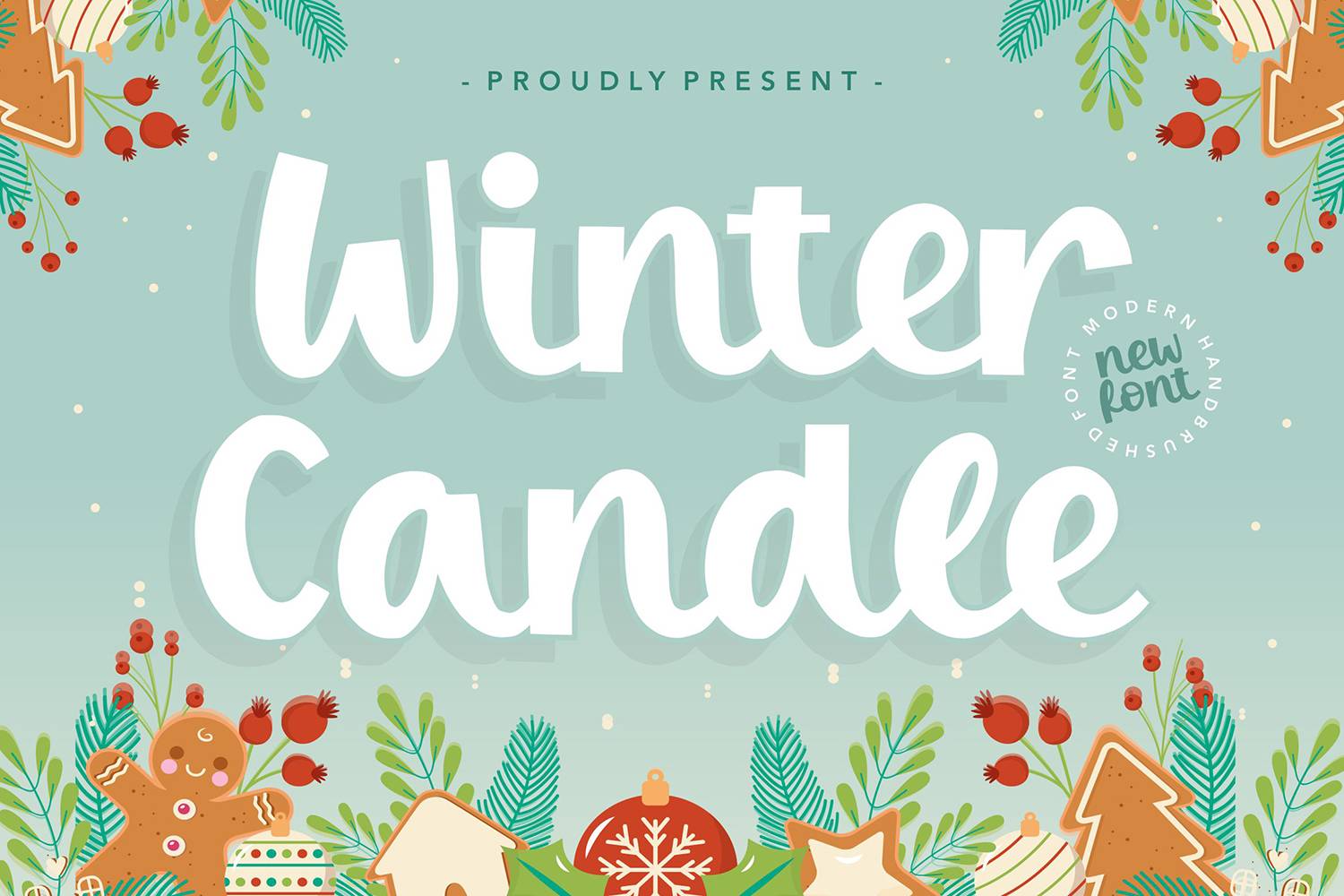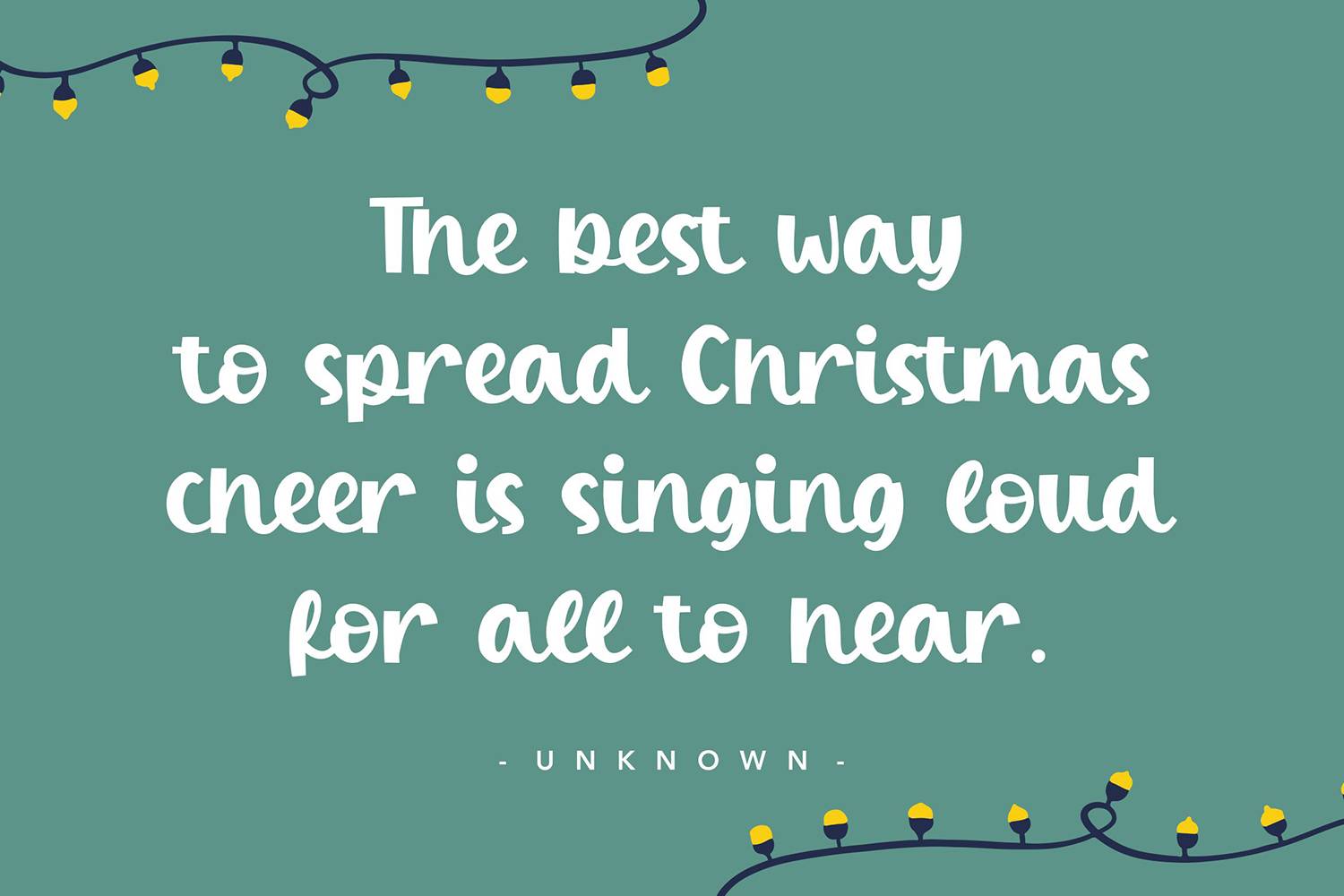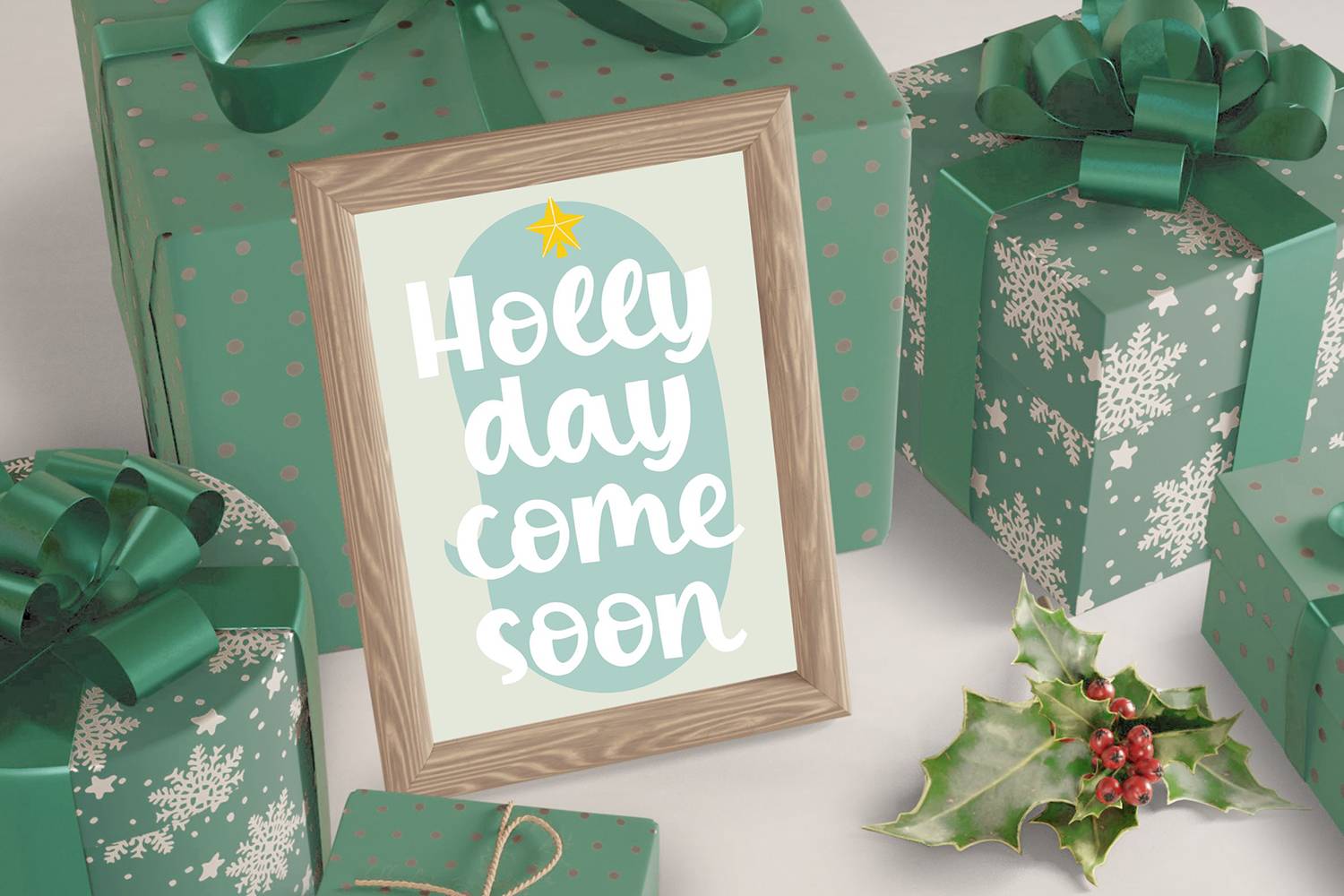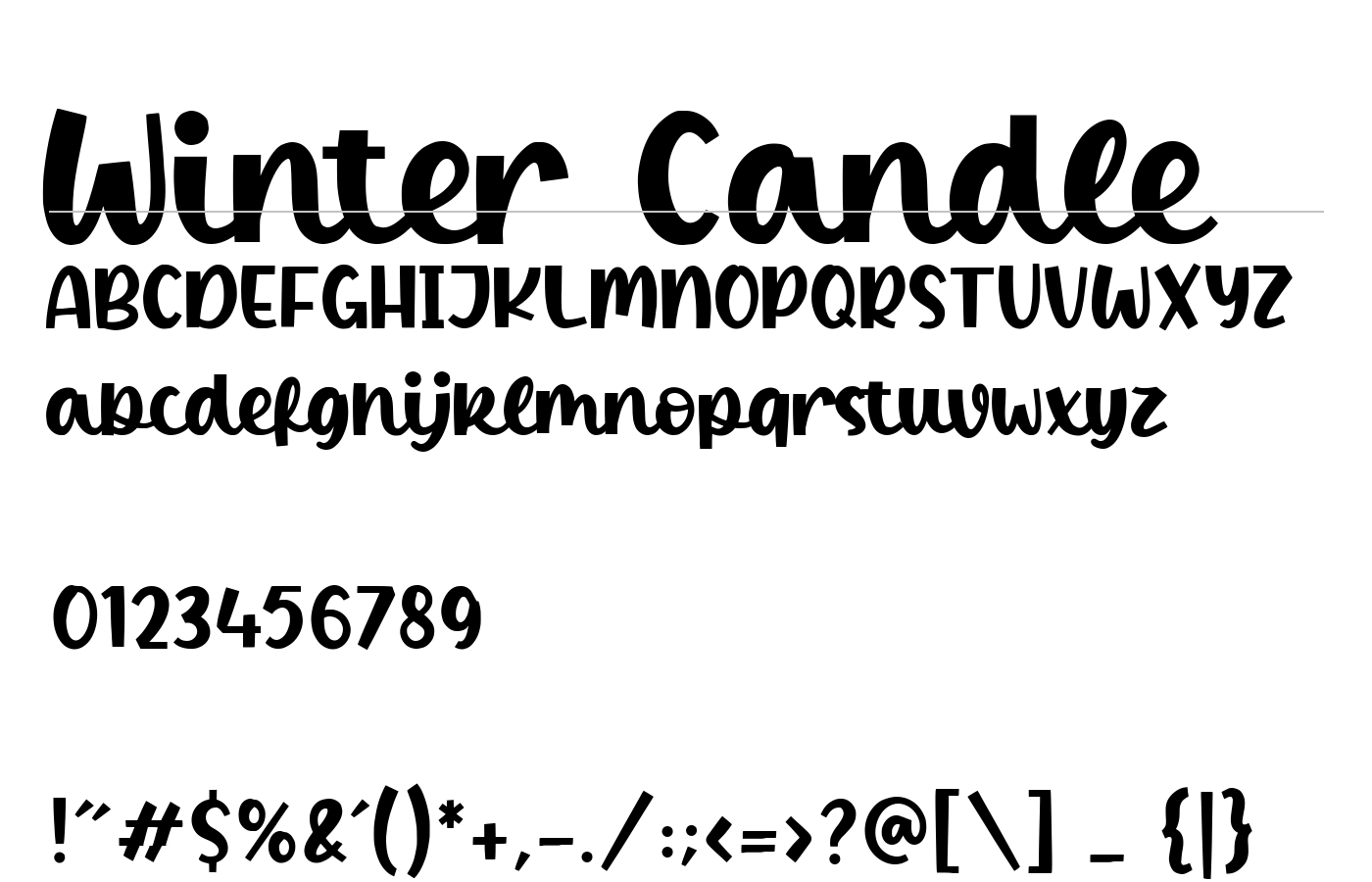
Winter Candle is a playful, handwritten font with a lively and casual feel, characterized by its bold weight and slightly condensed letterforms. Its smooth, rounded strokes and quirky letter shapes create a warm, inviting vibe perfect for charming branding, holiday designs, and friendly headlines. This font works well in informal contexts such as greeting cards, packaging, and websites aiming to convey cheerfulness and approachability.
Winter Candle Font
About Winter Candle Font